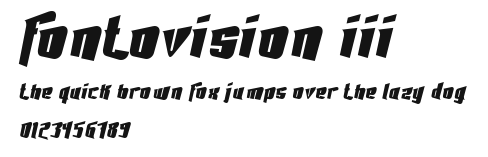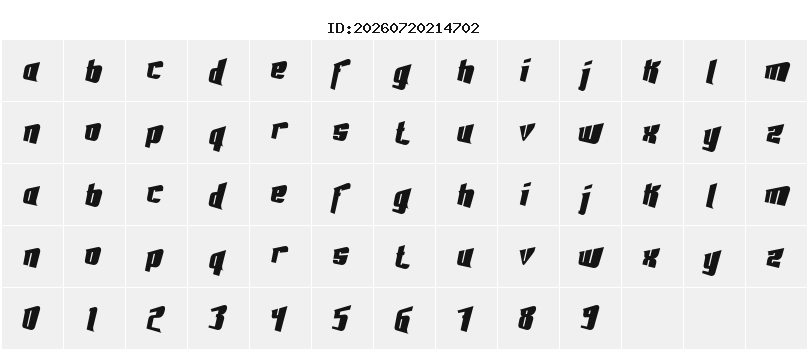
• Font Name: Fontovision III
• Font Style: 3D no 2
About Fontovision III.ttf
Fontovision III.ttf is a modern, elegant sans-serif font designed for ultimate readability and visual harmony. Perfect for branding, headlines, web design, and print materials.